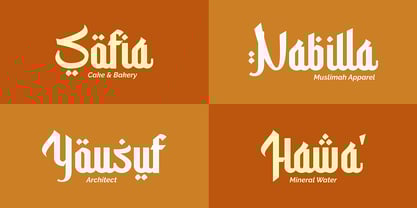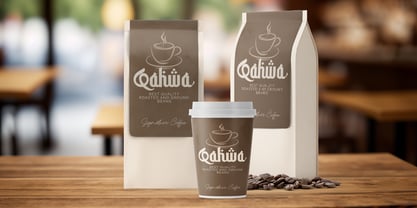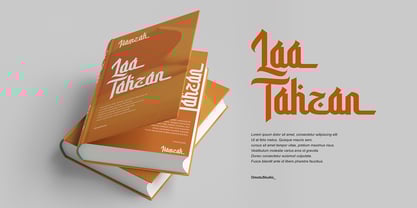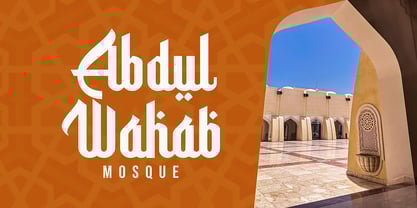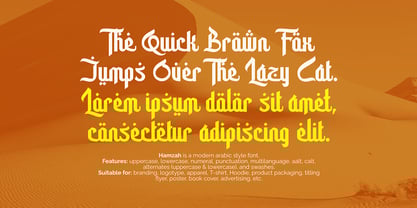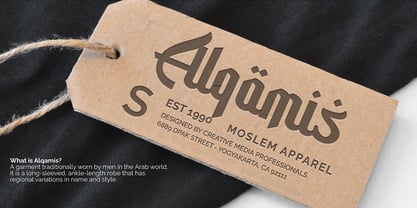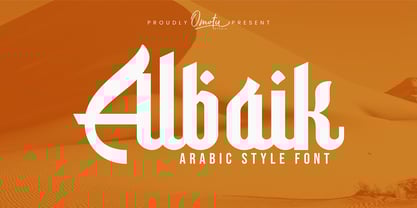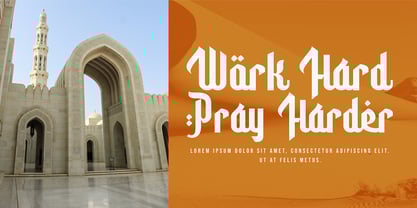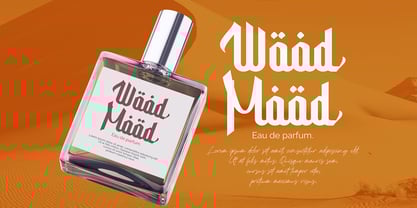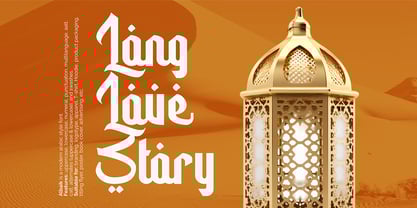
Albaik
by Omotu
The Albaik Font Family was designed by Ibnu Utomo and published by Omotu. Albaik contains 1 styles. More about this family
Hamzah is a modern Arabic style font. This font very usable for designing all kind of graphics design related to Arabic Contents. Hamzah font is suitable for heading, branding, logotype, apparel, T-shirt, Hoodie, product packaging, quotes, flyer, poster, book cover, advertising, etc.
1. Multilingual support
3. Features: uppercase, lowercase, numeral, punctuation, multilanguage, aalt, calt, alternates (uppercase & lowercase), and swashes.
Designers: Ibnu Utomo
Foundry: Omotu